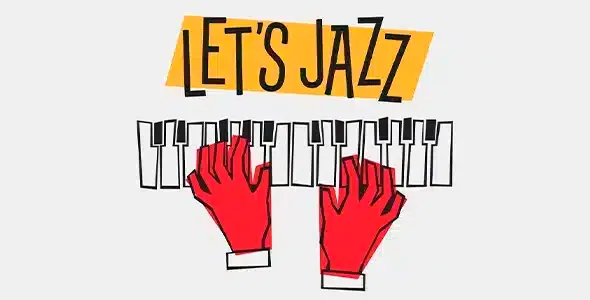
Introducing Lets Jazz Premium Font, a playful typeface inspired by iconic mid-century American advertising and lettering.
With this project we wanted to pay homage to the dazzling graphics of those boom years and the result is a striking typeface that provides a condensed look with a lively rhythm.
As stated above, Let’s Jazz brings the spontaneous vibe of this sensational music genre, but it has also been designed with a strong focus on the very distinctive look of Saul Bass’ graphics, which are honestly still fresh and compelling, even today.
Lets Jazz Premium Font offers two versions, Regular and Stamp. Each version contains over 450 glyphs and covers multiple languages based on the Latin alphabet; the Jazz experience is enhanced with OpenType (OTF) support for small caps and includes some neat ligatures and alternates, plus the old-style bouncy numbers*.
This pack is a powerful tool for a wide variety of design purposes: headlines, packaging, logos, badges, posters and much more. A bonus collection with various illustrations has been included to help you with your design projects!